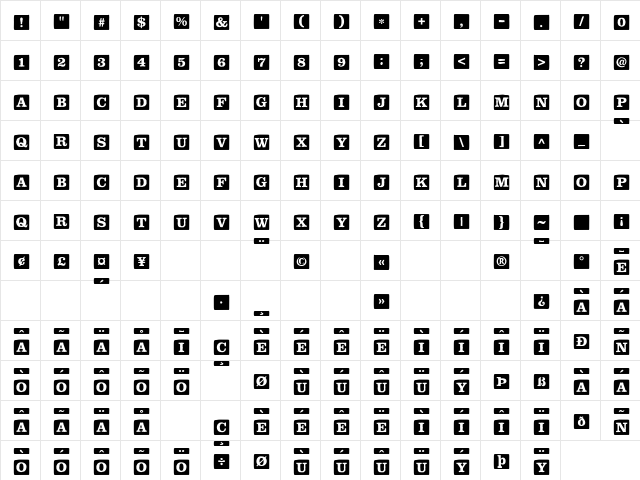
ChildsPlay BlocksSolid Regular
Design Context for ChildsPlay BlocksSolid Typeface
ChildsPlay BlocksSolid has an approachable, lighthearted character — its loose, expressive forms are well-suited to children's content, casual branding, and fun-first design.
Font Pairing: Pairs well with a rounded or humanist sans for body copy, maintaining the friendly tone without relying on ChildsPlay BlocksSolid to carry extended reading.
Pro Tip: Avoid using ChildsPlay BlocksSolid for long passages of text — it works best for headlines, labels, and short calls to action.